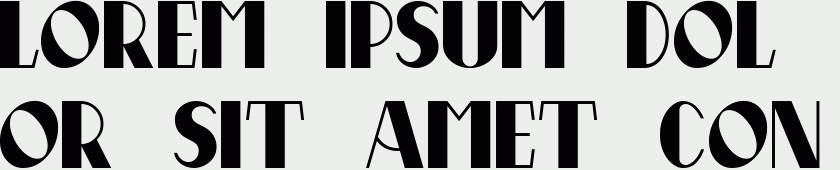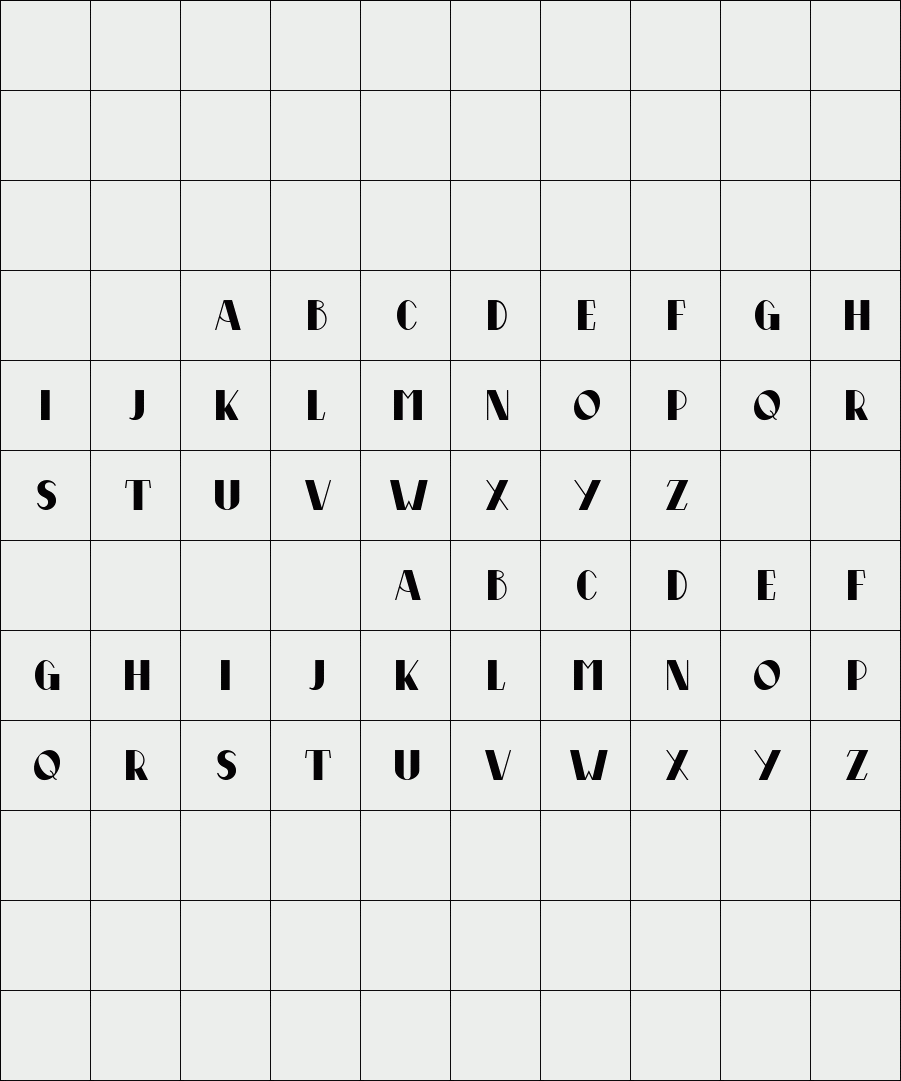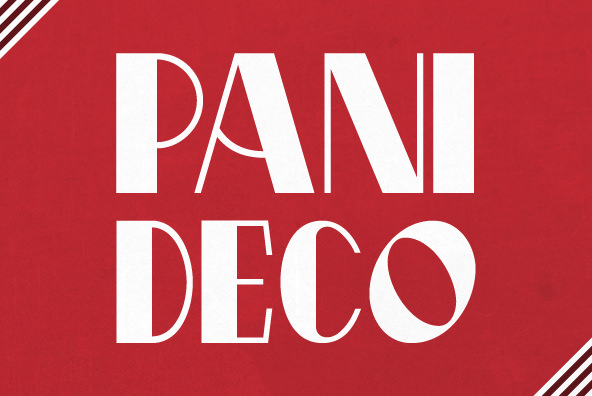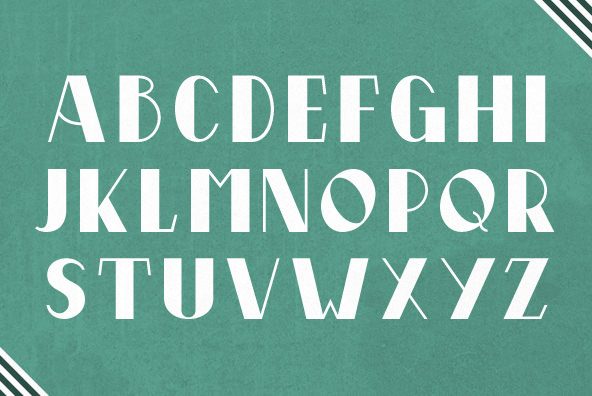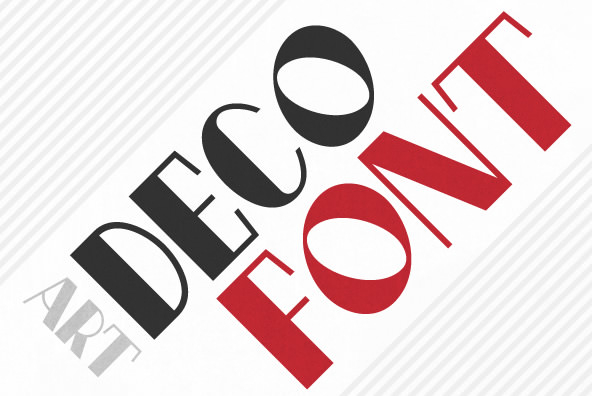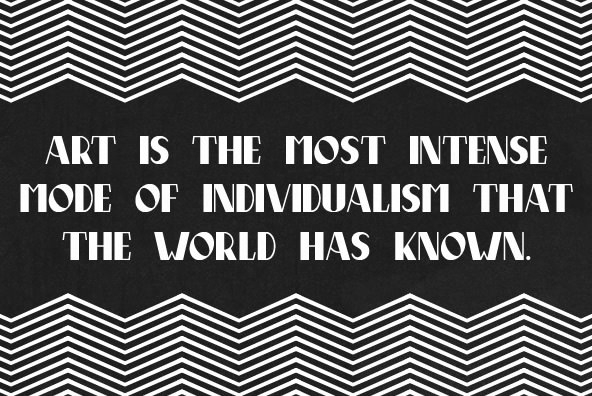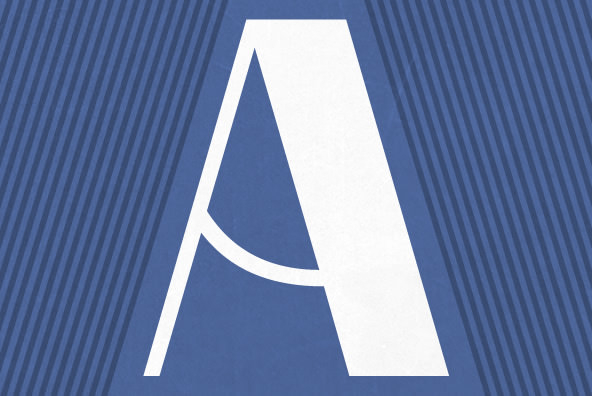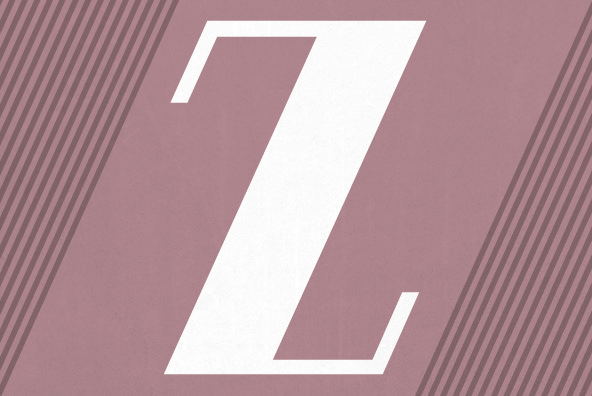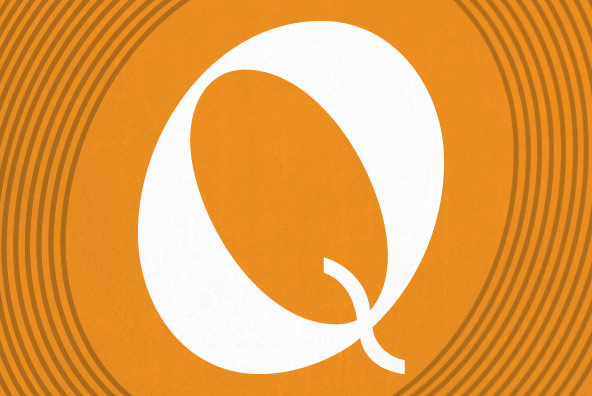
Pani Deco
Pani Deco is a typeface based on a poster designed in 1928 by Polish artist Anna Harland-Zajczkowska. It is part of a series inspired by the aesthetics of Poland, circa 1908 to 1939.